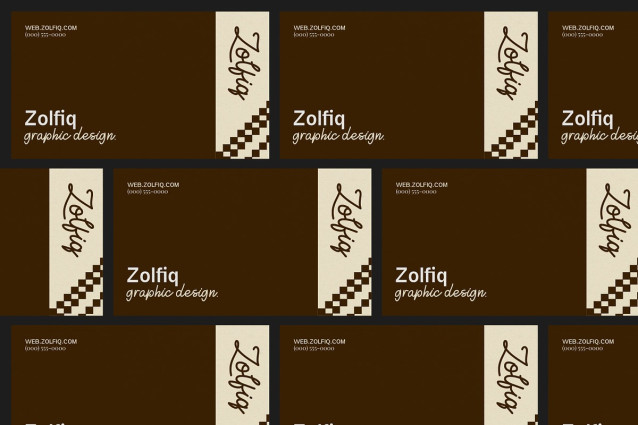
Zolfiq Monoline Font
Zolfiq Monoline Font is a harmonious blend of elegance and modernity. These fonts, characterized by consistent line thickness, offer a clean and sophisticated aesthetic that enhances various design projects. From branding and logos to wedding invitations and digital media,
Their simplicity ensures readability, while their unique designs add a personal touch to any creation. Embrace the timeless appeal of monoline script fonts to elevate your design endeavors.